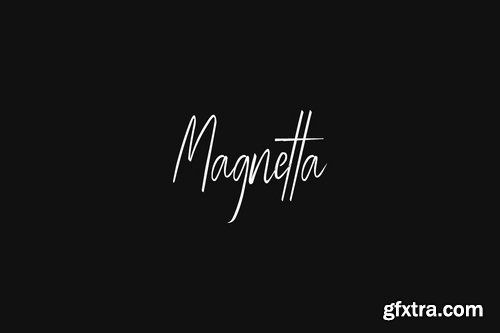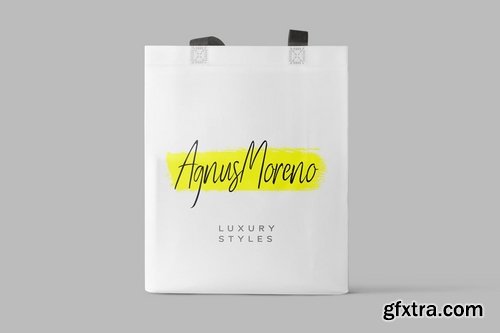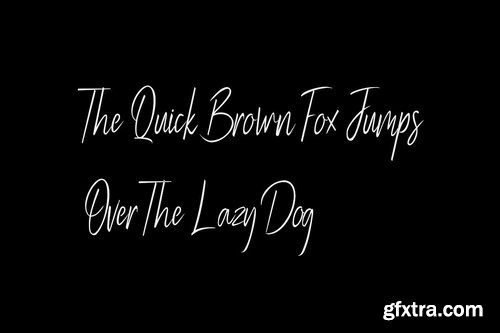
Magnetta is a lovely, beautiful handwritten font for luxury / signature / branding / logotype / wedding invites / greeting cards / promotional graphics. Magnetta is handcrafted with a custom brush, having perfection and aesthetics at it's level best.